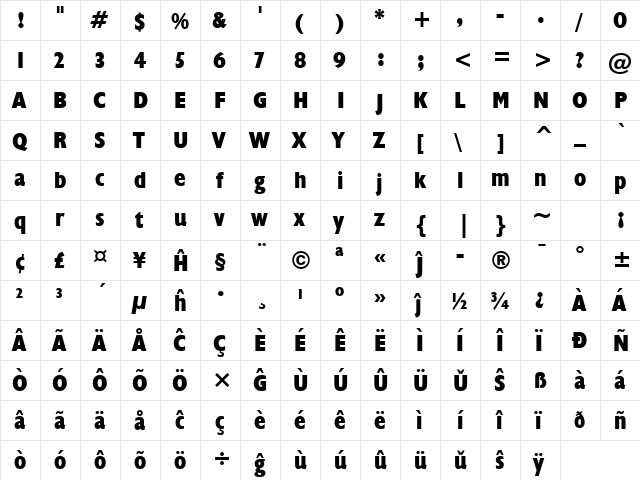
Humanst521 XBdCn BT Eo Extra Bold Font Preview
Humanst521 XBdCn BT Eo Extra Bold
Humanst521 XBdCn BT Eo Extra Bold Font Details
| Style | Extra Bold |
Design Context for Humanst521 XBdCn BT Eo Typeface
Humanst521 XBdCn BT Eo takes a measured approach to typography — its balanced proportions and neutral character make it a reliable workhorse for both digital and print work. The heavy weight commands attention and anchors typographic hierarchies.